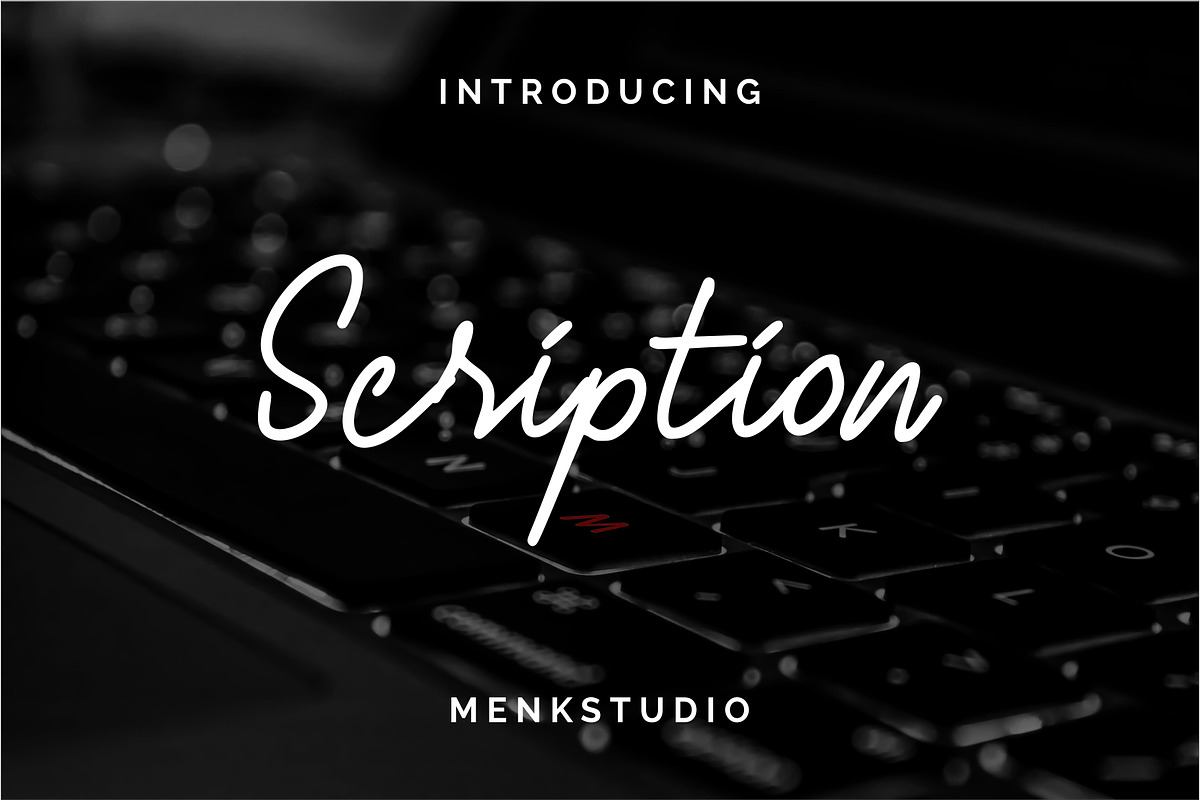
Please note, you must purchase this font for commercial use. However, you can easily download Scription Font Free Download for personal use and testing purposes. Scription Font is a versatile, elegant script typeface designed to add a personal and artistic touch to any design. Perfect for branding, invitations, logos, and social media graphics, this font features flowing, handwritten-style letterforms that give your typography a creative, custom feel. Whether you're working on a wedding invitation, a logo design, or marketing materials, Scription Font Free Download brings a stylish, organic vibe to your projects. Download Scription Font Free Download today and explore its potential before opting for a commercial license.